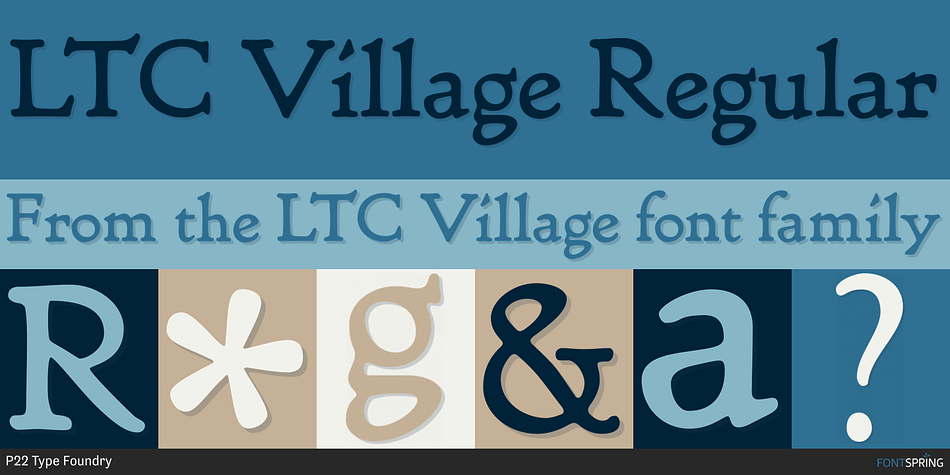
LTC Village
Designed by Frederic W. Goudy and Paul Hunt, LTC Village is a serif font published by P22 Type Foundry.
Village was originally designed by Frederic Goudy in 1903 for Kuppenheimer & Company for advertising use, but it was decided it would be too expensive to cast. It was later adopted as the house face for Goudy’s Village Press. The design was very much influenced by William Morris’s ‘Golden’ type.
Paul Hunt began working on a digital version of Frederic Goudy’s Village type prior coming to P22 in 2006 for an internship (which evolved into a staff designer position at P22.) Around this time, The Tampa Book Arts Studio was looking for a digital version of Village to complement with a letterpress edition of a book called “The Rich Mouse” by JJ Lankes. Many years later the Rich Mouse project has been completed, so we decided to release the Village type on the same day as the release of the Rich Mouse Book!
Foundry P22 Type Foundry
Designers Frederic W. Goudy, Paul Hunt